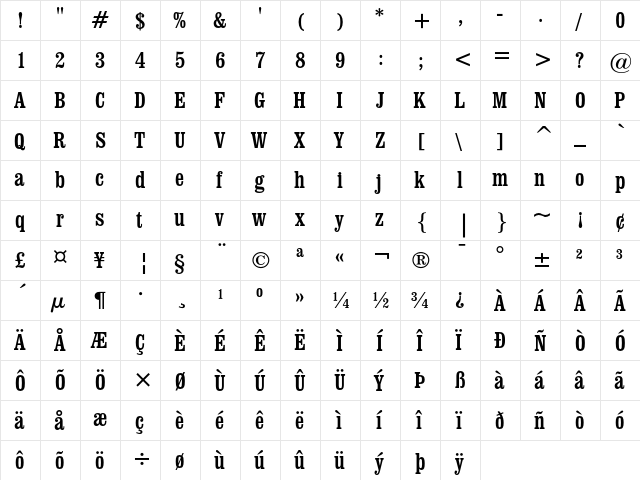
Clarendon Condensed
Design Context for Clarendon Typeface
Clarendon features prominent, blocky serifs that give it a confident, grounded presence — equally at home in editorial settings and bold branding work. The condensed width makes it efficient for tight spaces without sacrificing legibility.
Works well in editorial design, news publishing, impactful branding, and poster typography.
Pro Tip: Try Clarendon set tight in headlines for a classic editorial feel. Its slab serifs create strong horizontal rhythm that anchors a page layout.